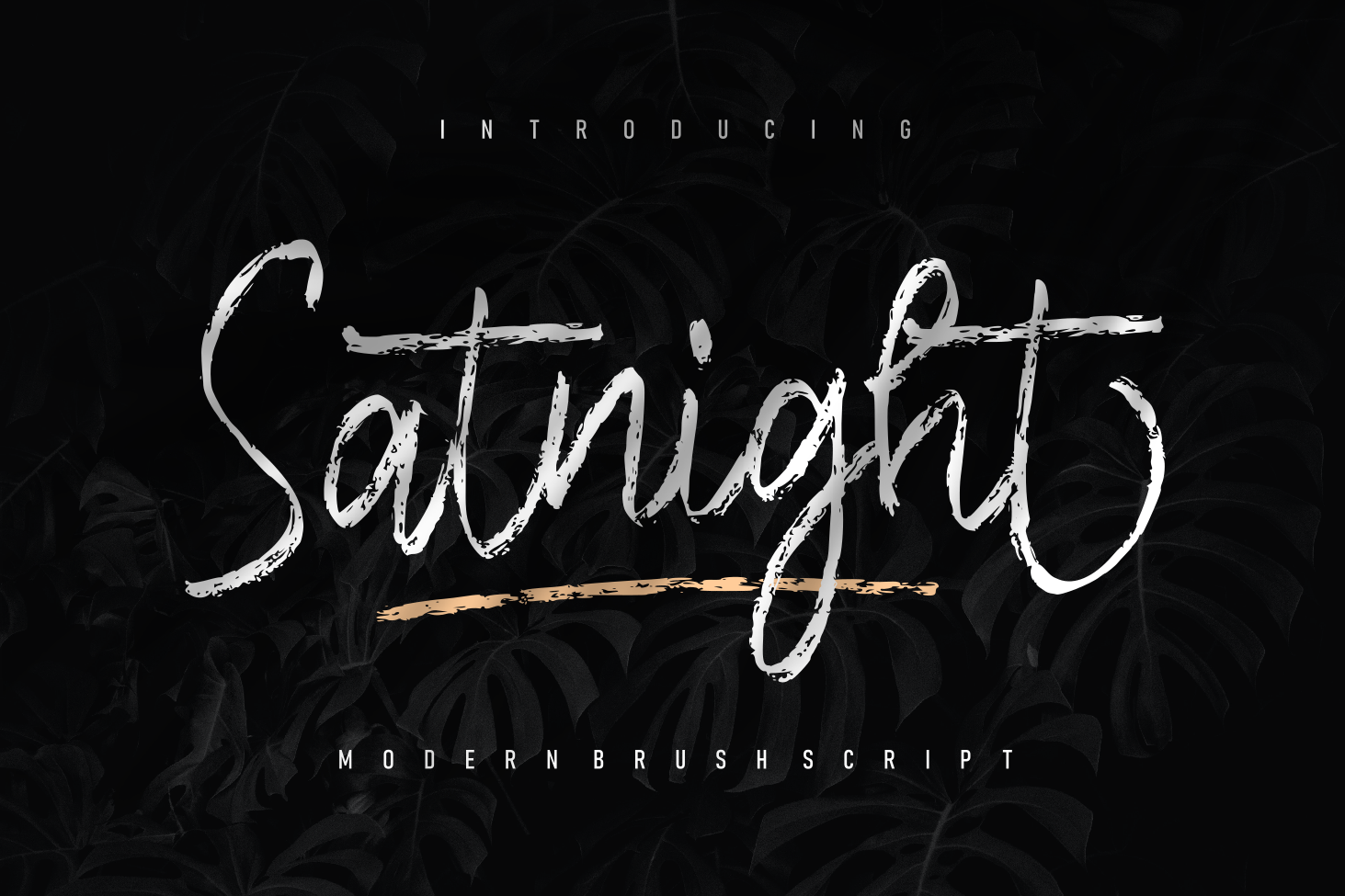
Satnight Brush Font
Proudly present new our font Satnight.
Satnight is a Handwritten Font with less texture. I made Neutral Autumn on smooth paper, so that the texture that is produced is not too much. This is perfect if you don't really like texturing fonts too much. Satnight suitable for various projects such as stationery invitations, social media, logos, weddings, branding, graphic design with the addition of several binders and swashes. and can be combined with various types of serif fonts to perfect the project you want to work on.